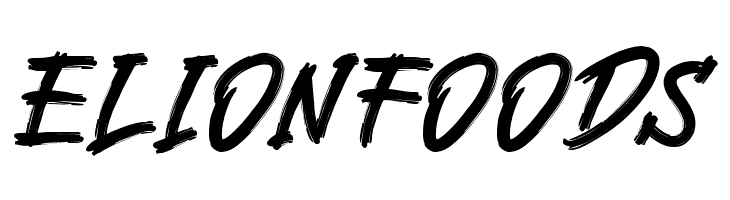
A lively, handwritten script with dynamic, fluid strokes.
A lively, cursive font with fluid, interconnected strokes and a personal touch.
A playful, blocky font inspired by building bricks, perfect for bold and engaging designs.
An artistic, calligraphic font with flowing, decorative strokes.
A bold, gothic-inspired font with sharp, angular characters and intricate detailing.
A grunge brush font with a distressed, hand-painted look.
A bold, jagged font with sharp, thorny edges and a striking appearance.
A bold, dynamic brush-style font with expressive strokes and a modern flair.
A playful font with characters made of dashes and dots, perfect for creative projects.